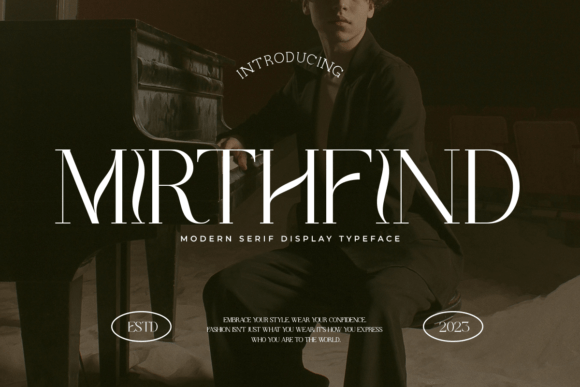
Mirthfind - Whimsical Handwriting Font for Kids & DIY Projects
Mirthfind is a stylized display font created to give your designs strong visual character and impact. With letterforms designed for display use — headers, logos, packaging, posters — Mirthfind brings personality and presence rather than subtlety or neutrality. It’s especially well‑suited for projects that benefit from bold typography and creative flair.
Whether you are building a brand identity, crafting product packaging, designing flyers, or digital art — Mirthfind offers a font voice that stands out and grabs attention. Use it when you want typography that feels distinctive, expressive, and design‑forward.
- Full Latin character set — uppercase, lowercase, numbers, punctuation, basic glyphs
- Display‑ready font optimized for headers, logos, labels, and creative typography
- Distinctive display‑style font — great for bold branding, packaging, posters, and creative design
- Adds strong personality and visual impact to your designs — helps your work stand out
Q: Can I use Mirthfind for long body text or paragraphs?
A: No — Mirthfind is designed as a display‑font. It’s best suited for headings, logos, titles, packaging text, signage or decorative use rather than long paragraphs or body copy. -
| Feature | Mirthfind | Generic Clean Sans‑Serif Display Font | Generic Neutral Serif Font |
| Font Style | Display‑style, bold/expressive, design‑forward | Neutral sans‑serif — minimal, modern, unobtrusive | Serif — classic, readable, more traditional |
| Best Use | Logos, packaging, posters, signage, creative projects | Web UI, clean branding, minimalistic design, body × headings | Books, editorial, readable long‑form copy, classic design |
| Readability (small text / body) | Lower — best at larger/display sizes | High — good at small and large sizes for UI and body text | High — good for body copy, print, editorial content |
| Visual Vibe | Bold, expressive, creative, statement‑making | Clean, modern, minimal, subtle | Classic, refined, traditional, timeless |